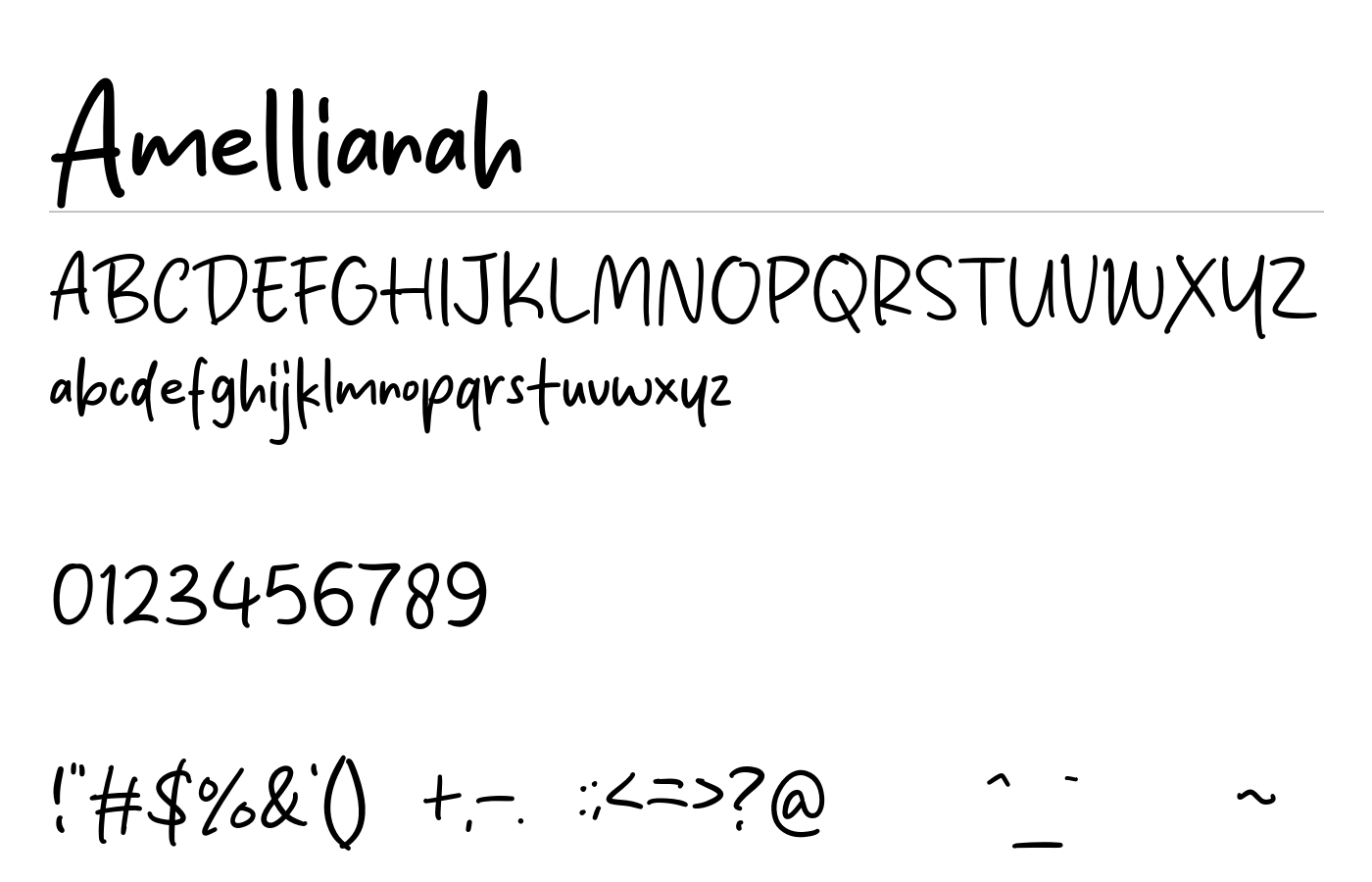
Amellianah is a casual, handwritten sans serif font that feels friendly and approachable with its smooth, rounded strokes and natural flow. Its moderate weight and slightly tall x-height make it easy to read while maintaining a playful and personal touch, perfect for informal branding, social media graphics, or creative projects that seek a warm, inviting vibe. This font works especially well in headlines, logos, and packaging where a human, handmade feel is desired.
Amellianah Font
About Amellianah Font